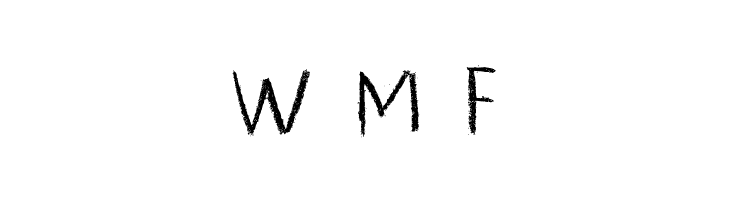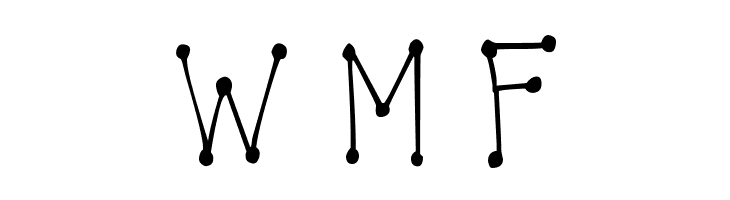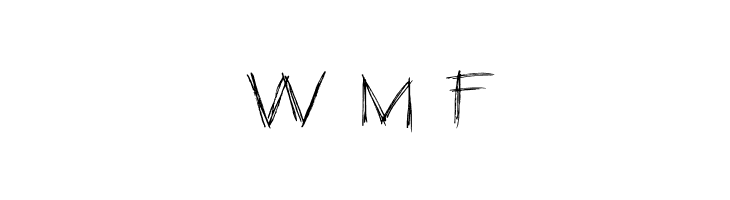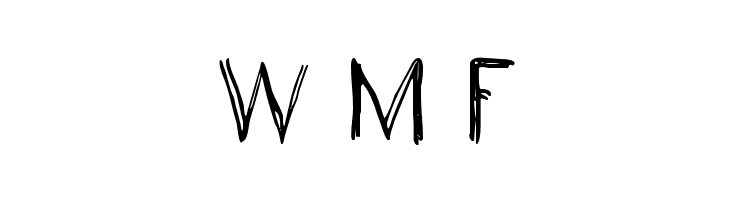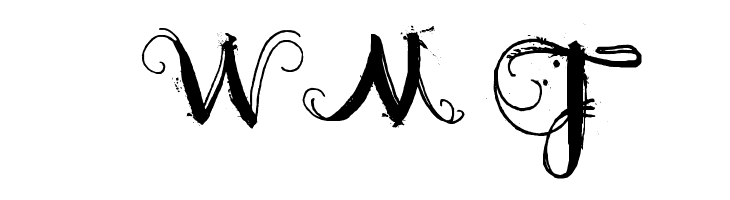
• DJB I Love a Ginger
A whimsical, hand-drawn font with playful, irregular lines.
• DJB I Love Me Some Aly
A playful handwritten font with a casual and friendly vibe.
• DJB Im No Wizard
A whimsical, hand-drawn font with a magical, playful style.
• DJB It's Full of Dots Straight
A playful, dotted font with straight lines and whimsical charm.
• DJB Lemon Head
A playful, hand-drawn font with tall, narrow characters and a whimsical style.
• DJB Lemon Head Blocked Bold
A bold, hand-drawn font with whimsical characters enclosed in rectangular blocks.
• DJB Lemon Head Bold
A playful, bold font with rounded, thick strokes and a whimsical touch.
• DJB Lemon Head Outlined
A playful, hand-drawn font with outlined characters in a whimsical style.
• DJB Me and My Shadow Dark
A bold, playful handwritten font with a casual and friendly style.
• DJB Me and My Shadow Light
A playful, handwritten font with smooth, rounded strokes and a casual vibe.
• DJB Rubia's Tiny Print
A playful, casual handwritten font with smooth curves and rounded edges.
• DJB Rubia's Tiny Script
• DJB Scruffy Angel
A playful, whimsical handwritten font with uneven strokes and a casual style.
• DJB SUGAR SHOCK
A playful, hand-drawn font with tall, narrow letters and a whimsical style.
• DJB SUGAR SHOCK MAX Bold
A playful, handwritten font with bold, rounded strokes and a lively, informal style.
• DJB That Font I Saw on TV
A playful, outlined font with tall, narrow characters and rounded edges.
• DJB This Font is Bold Bold
• DJB This Font is Empty Bold
A playful, bold, and hollow font with whimsical, outlined characters.
• DJB This Font is Stressed Bold
A playful, hand-drawn font with bold, irregular strokes.
• DJB To Be Continued
A whimsical, hand-drawn script font with playful loops and curves.
• DJB TOOTSIE WOOTSIE BOLD Bold